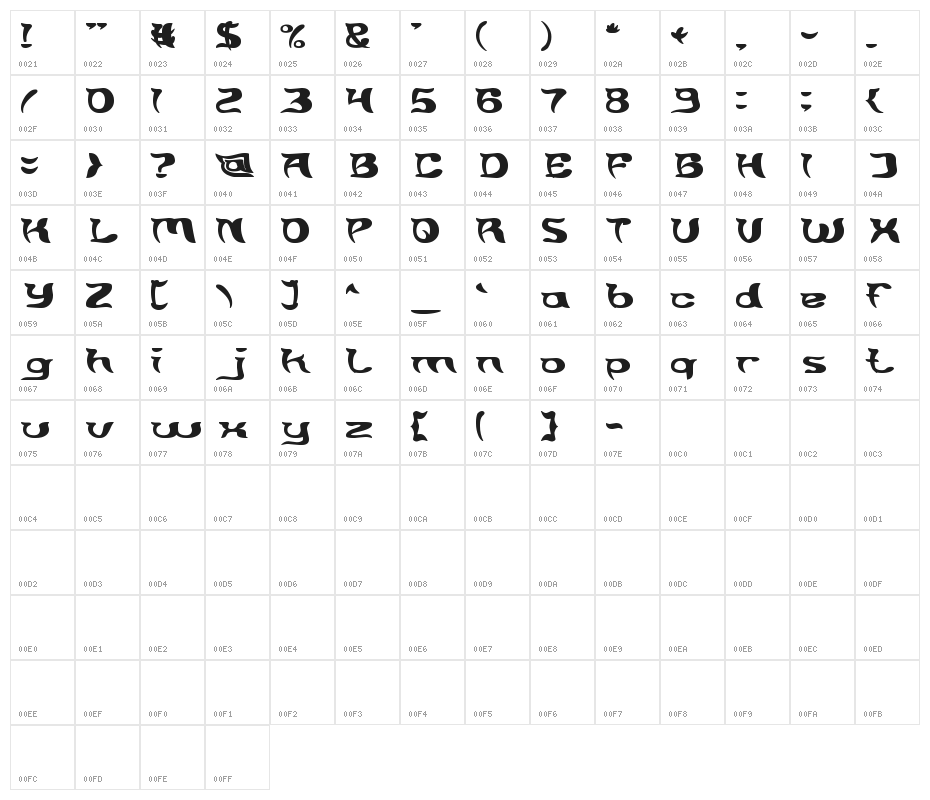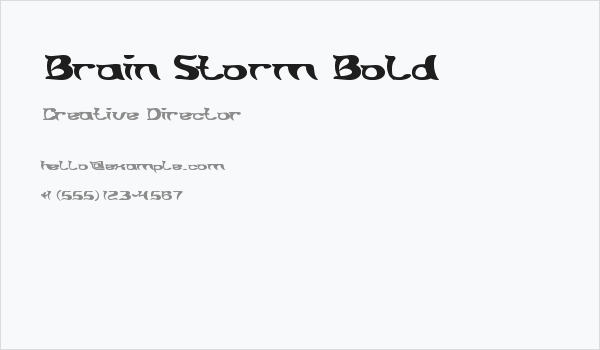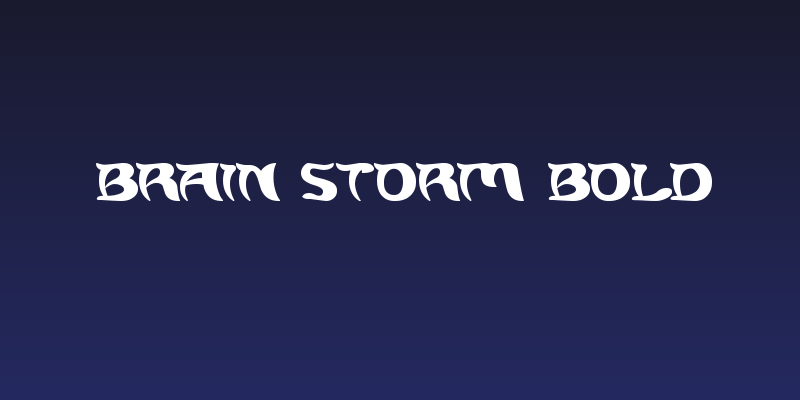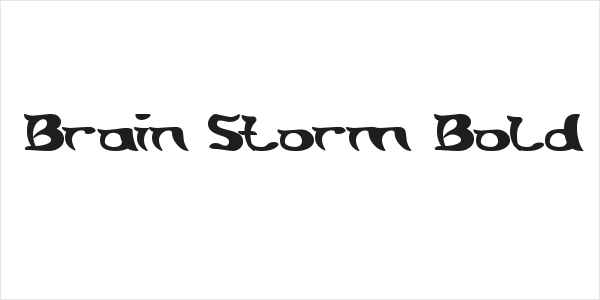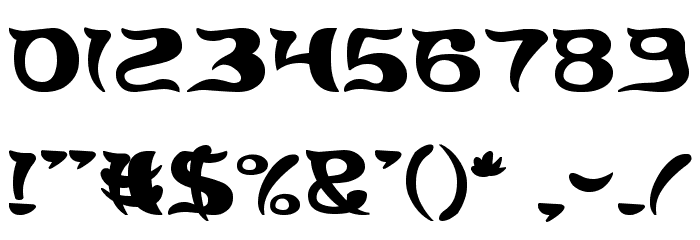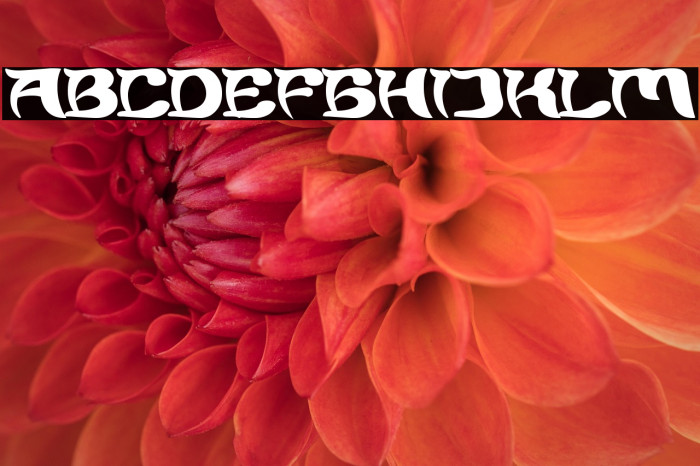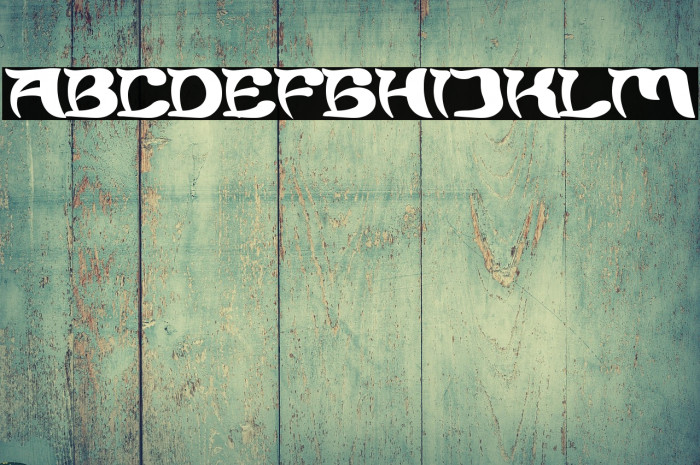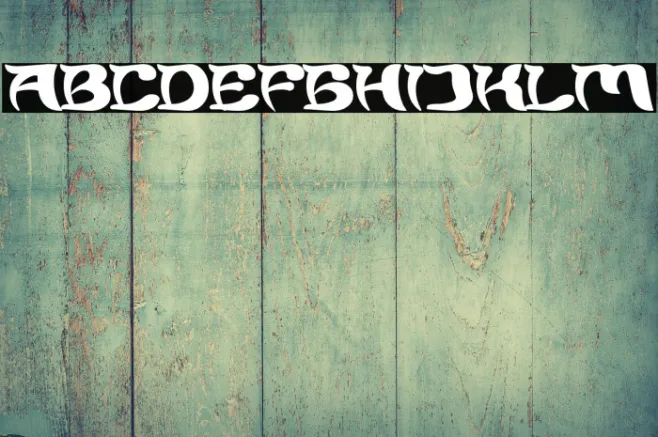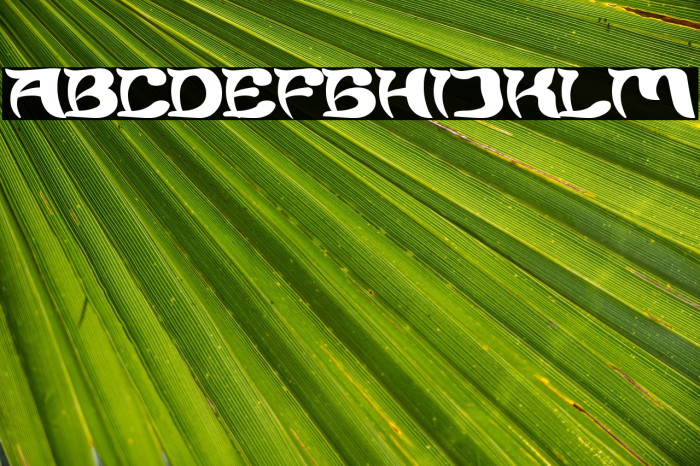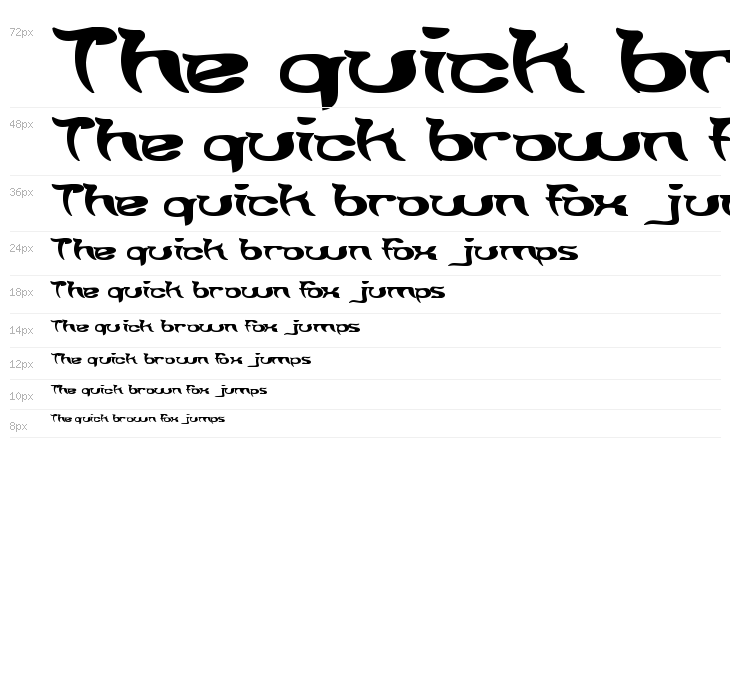
Brain Storm Bold Font
Brain Storm Bold Description
This font exhibits a bold and dynamic style with a strong presence. The characters are uniquely crafted with sharp, angular edges and a flowing, almost calligraphic flair. The uppercase letters are particularly striking, with exaggerated curves and pointed terminals that give them a sense of movement and energy. The lowercase letters maintain the same boldness, with a slightly more compact and rounded form. Numbers and special characters follow the same design principles, ensuring consistency throughout. This font is ideal for making a statement, with its high contrast and distinctive appearance.